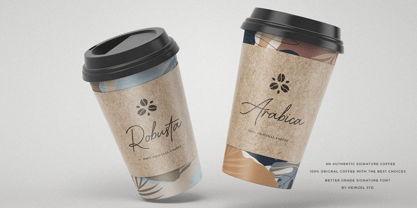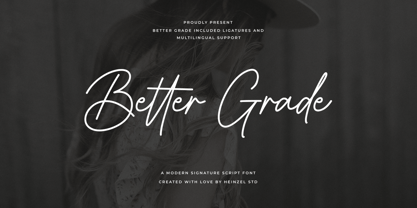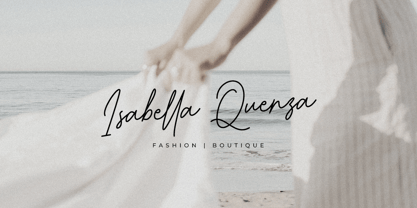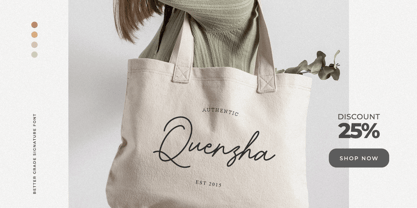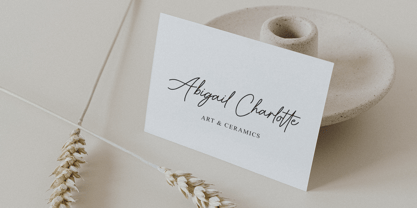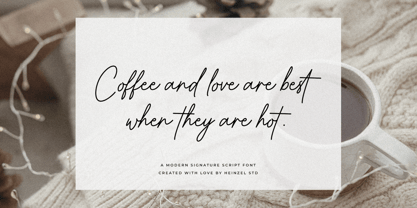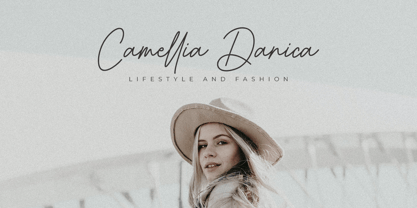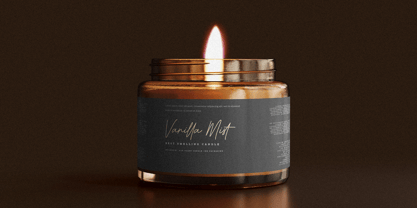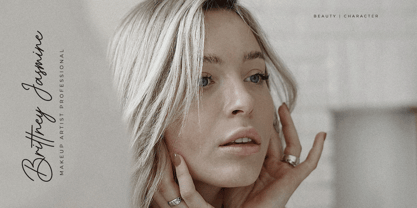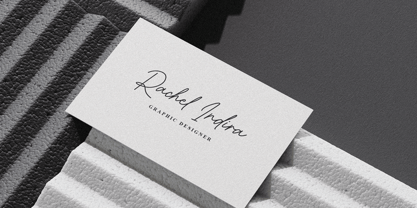
Better Grade
by Heinzel Std
The Better Grade Font Family was designed by Nofi Sofyan Hadi and published by Heinzel Std. Better Grade contains 1 styles.
Better Grade is a flowing handwritten font, described by an elegant touch, perfect for your favorite projects. It looks stunning on wedding invitations, thank you cards, quotes, greeting cards, logos, business cards and every other design which needs a handwritten touch. Fall in love with its incredibly distinct and timeless style and use it to create spectacular designs!
Designers: Nofi Sofyan Hadi
Publisher: Heinzel Std
Foundry: Heinzel Std
Design Owner: Heinzel Std